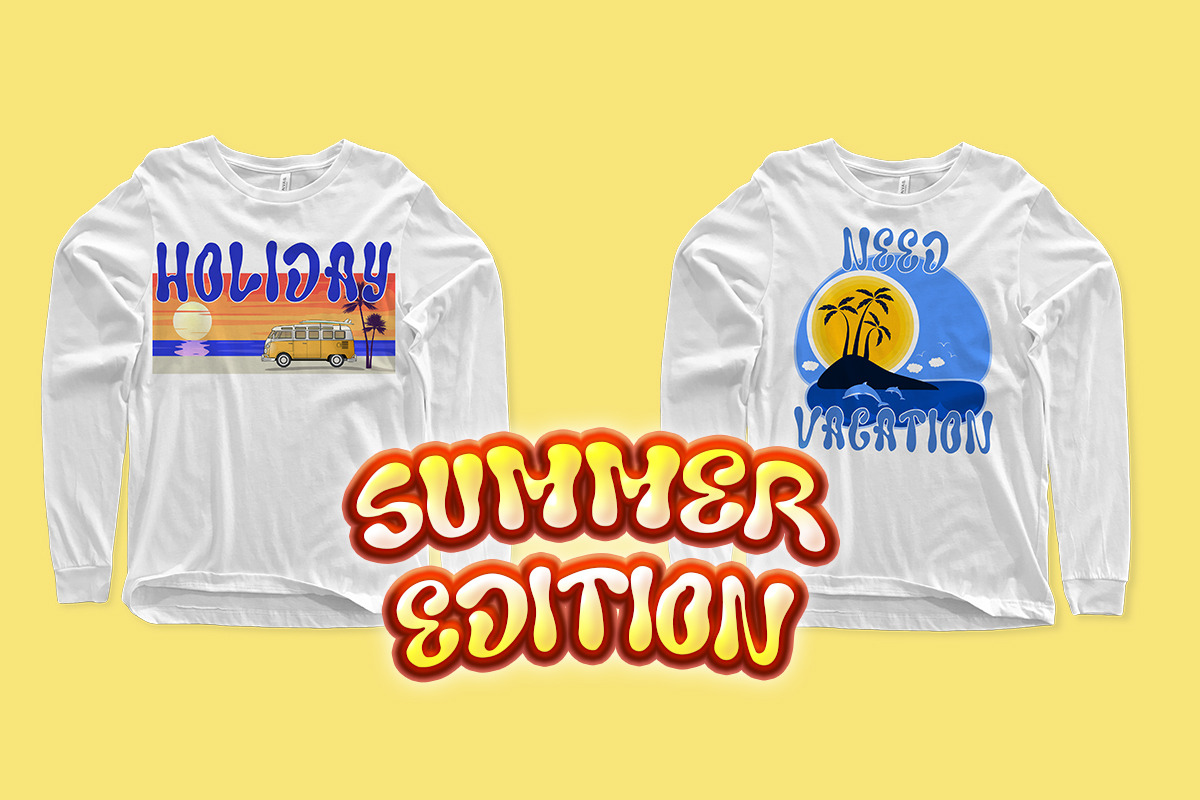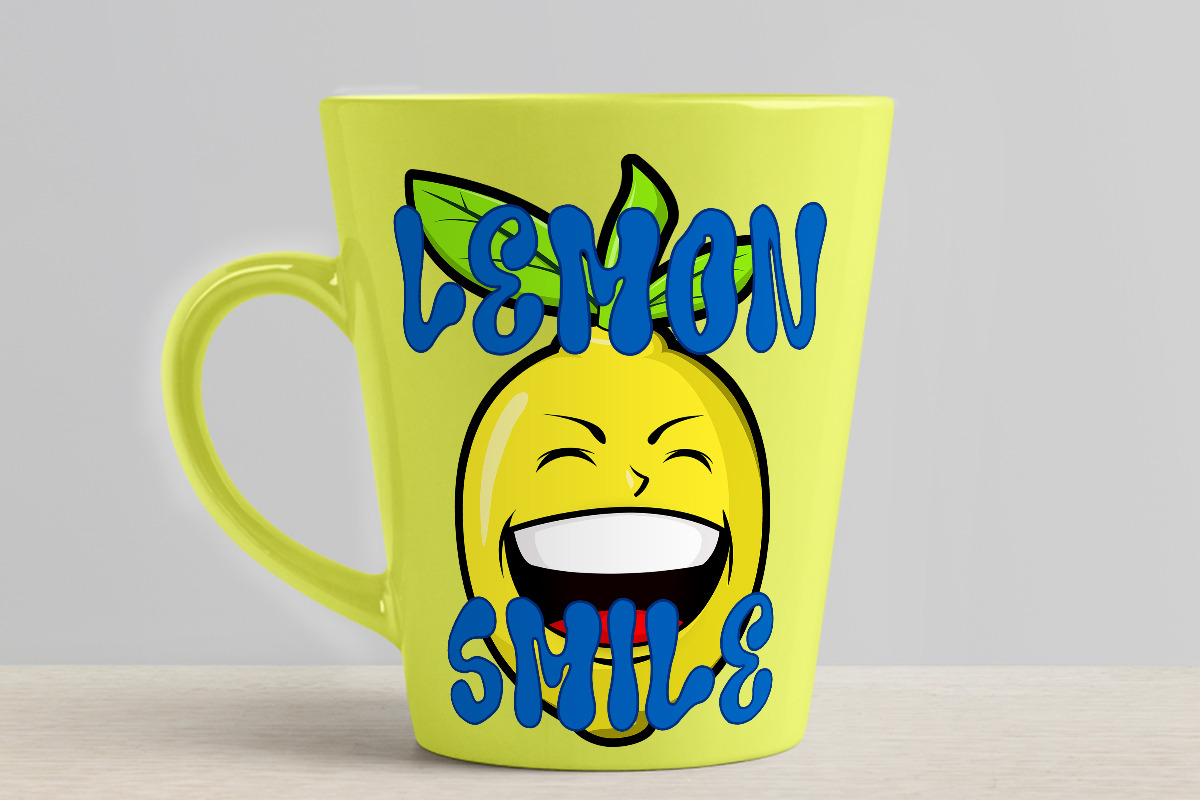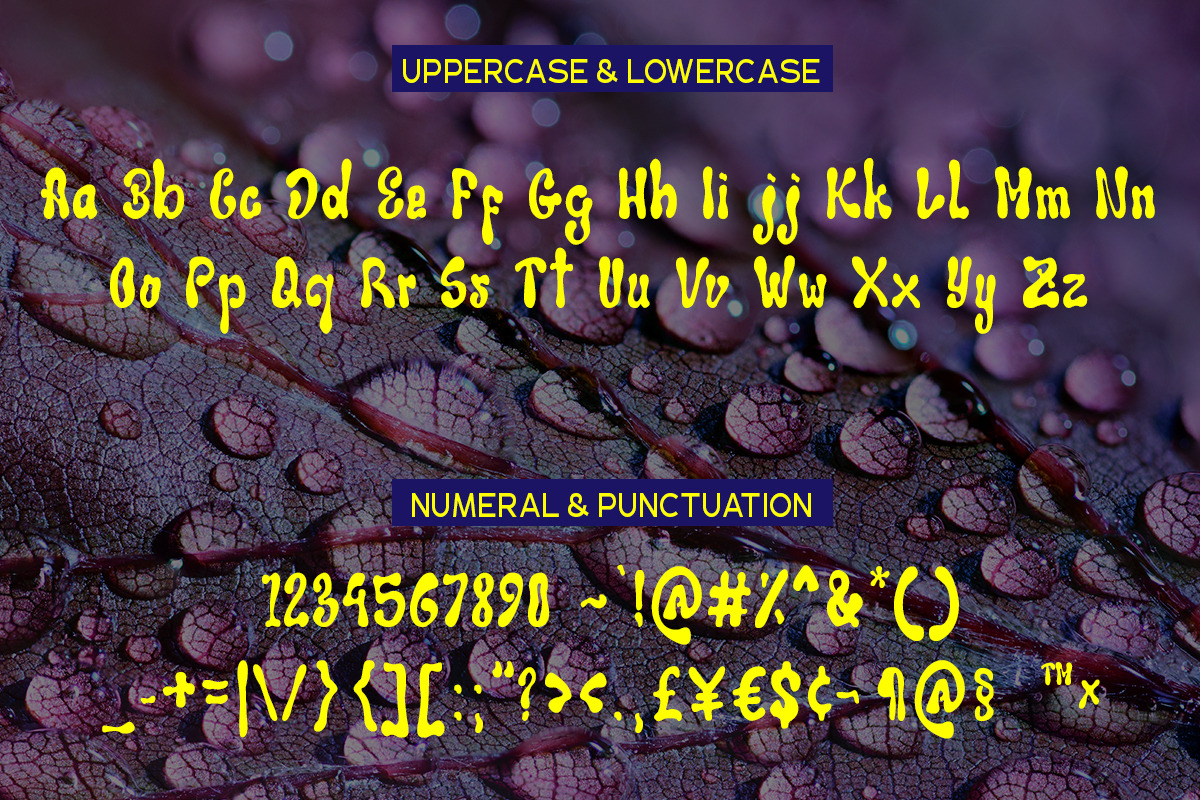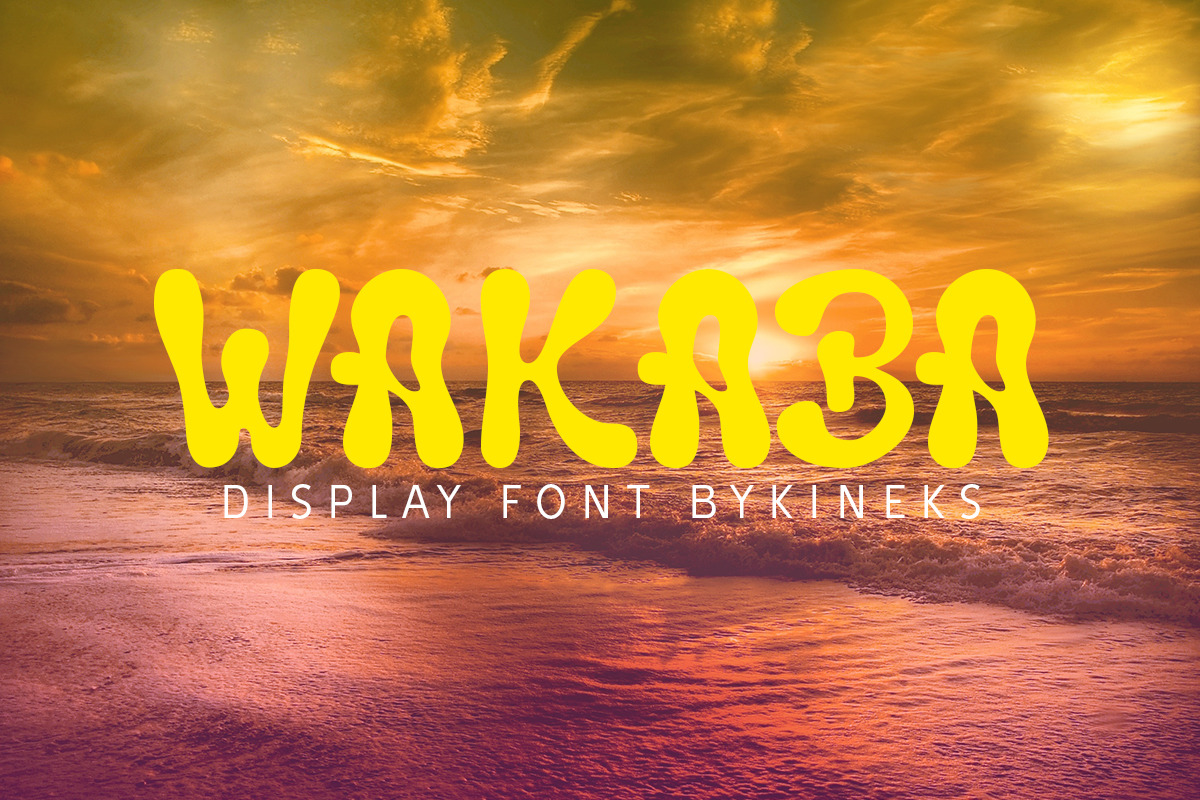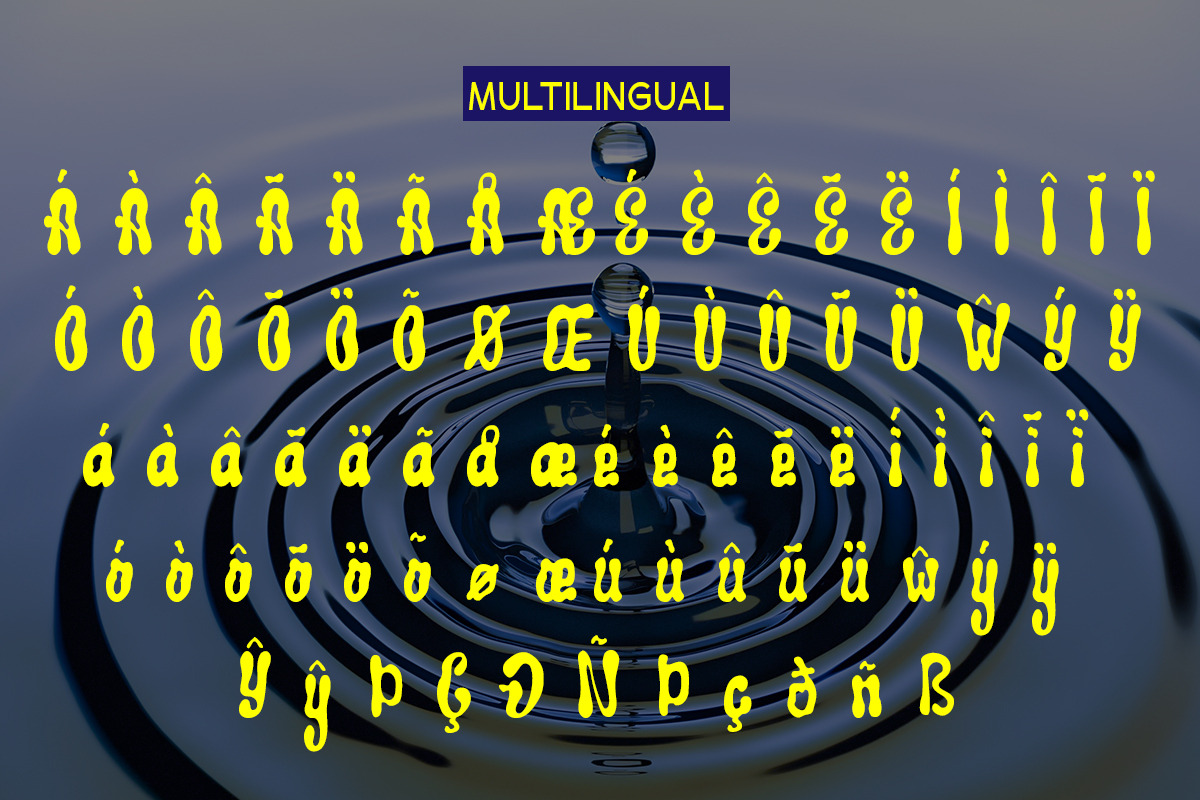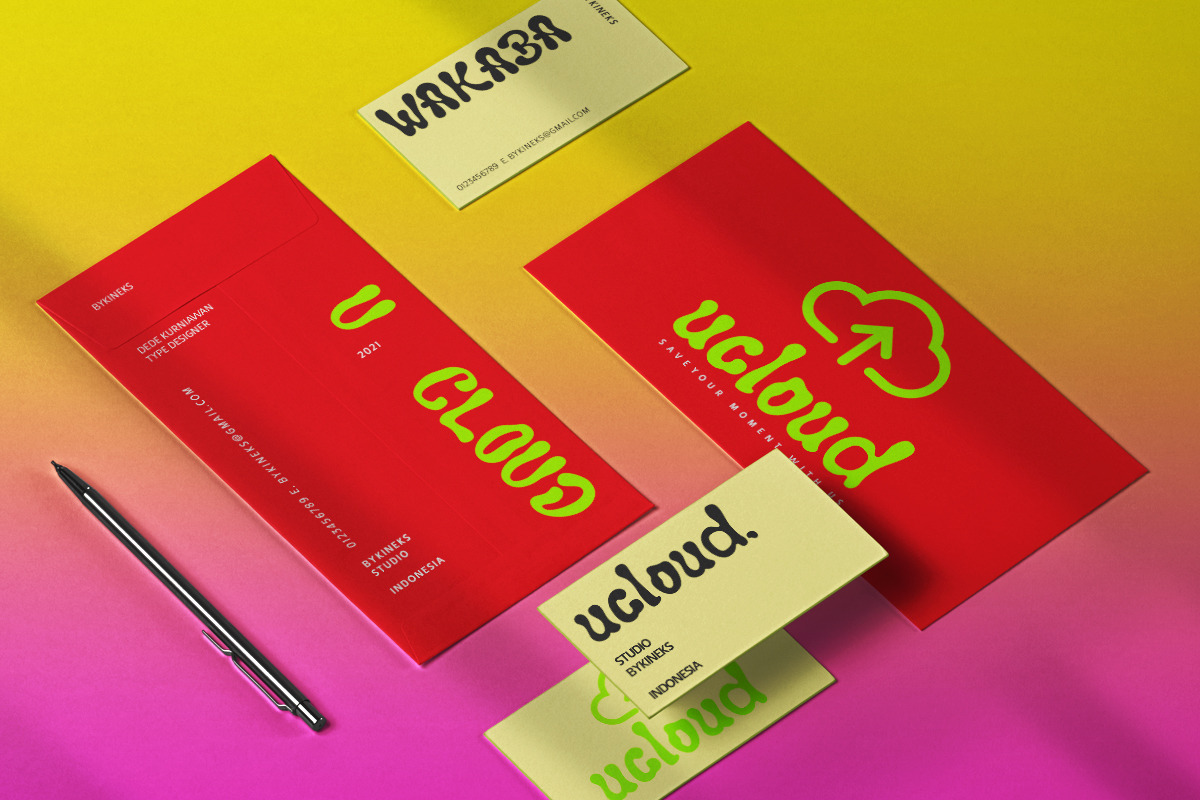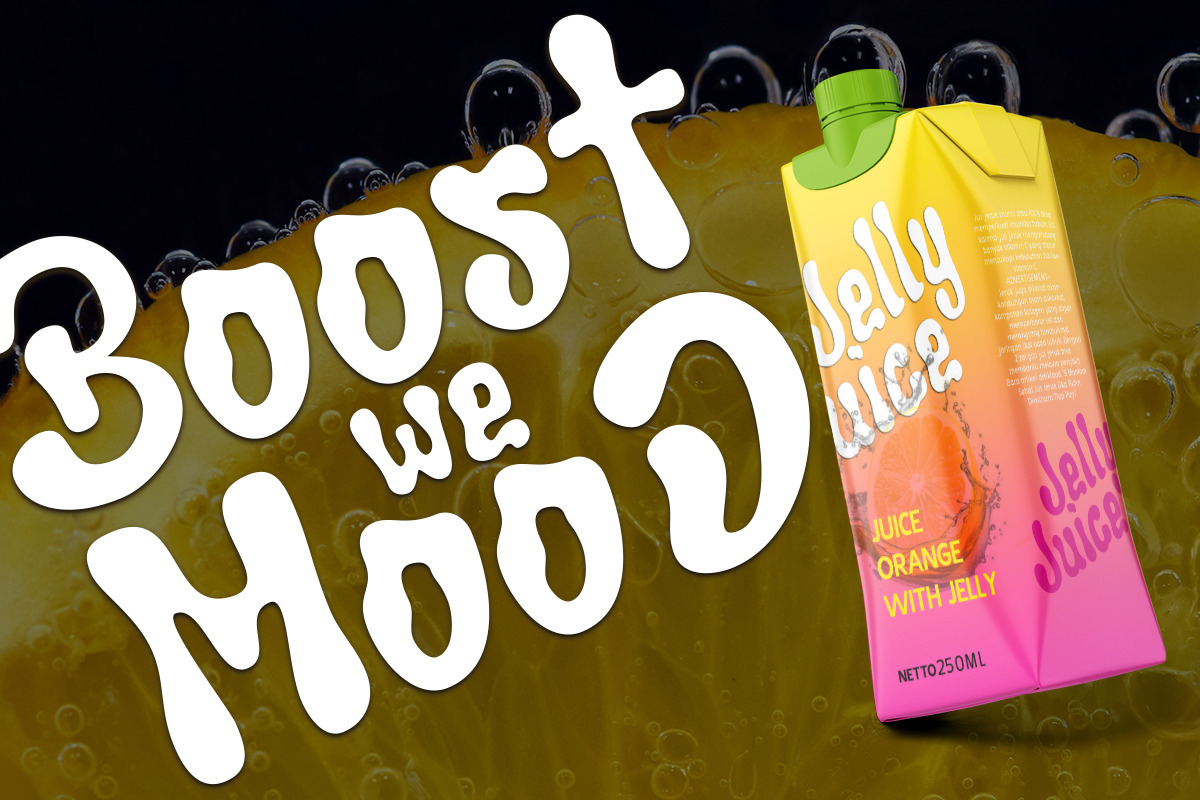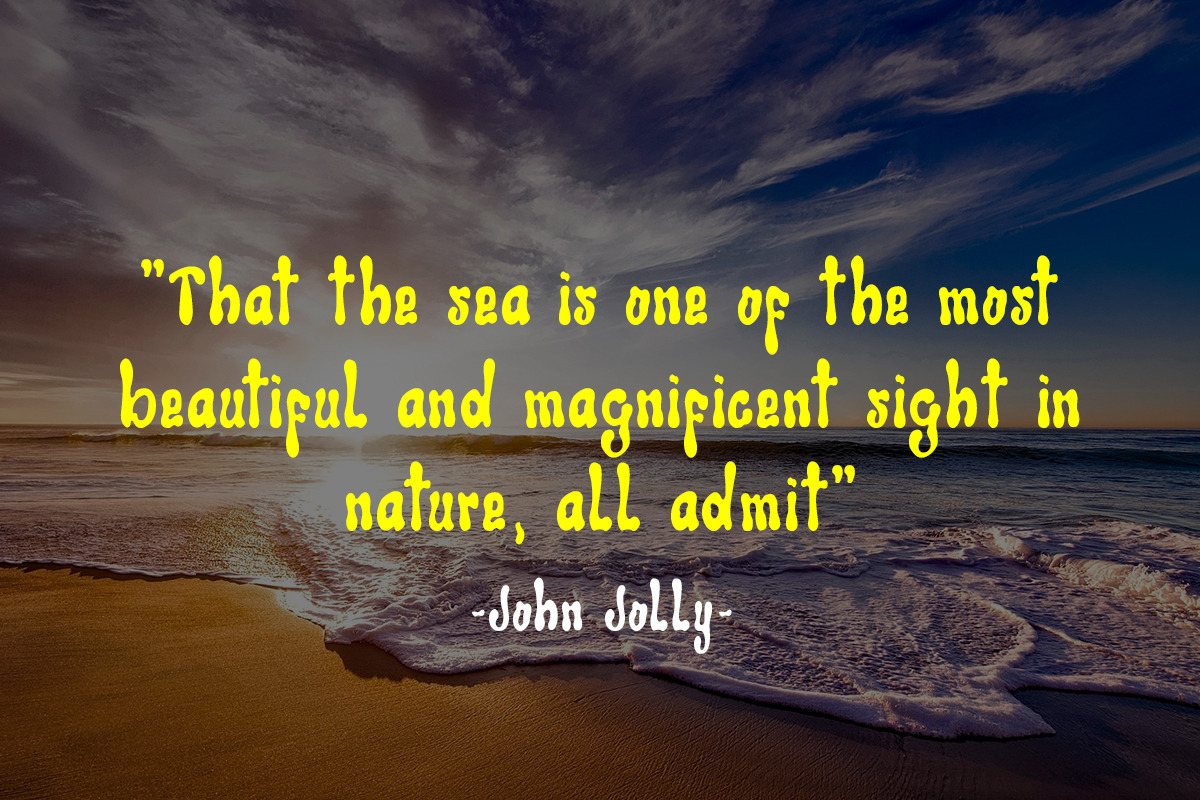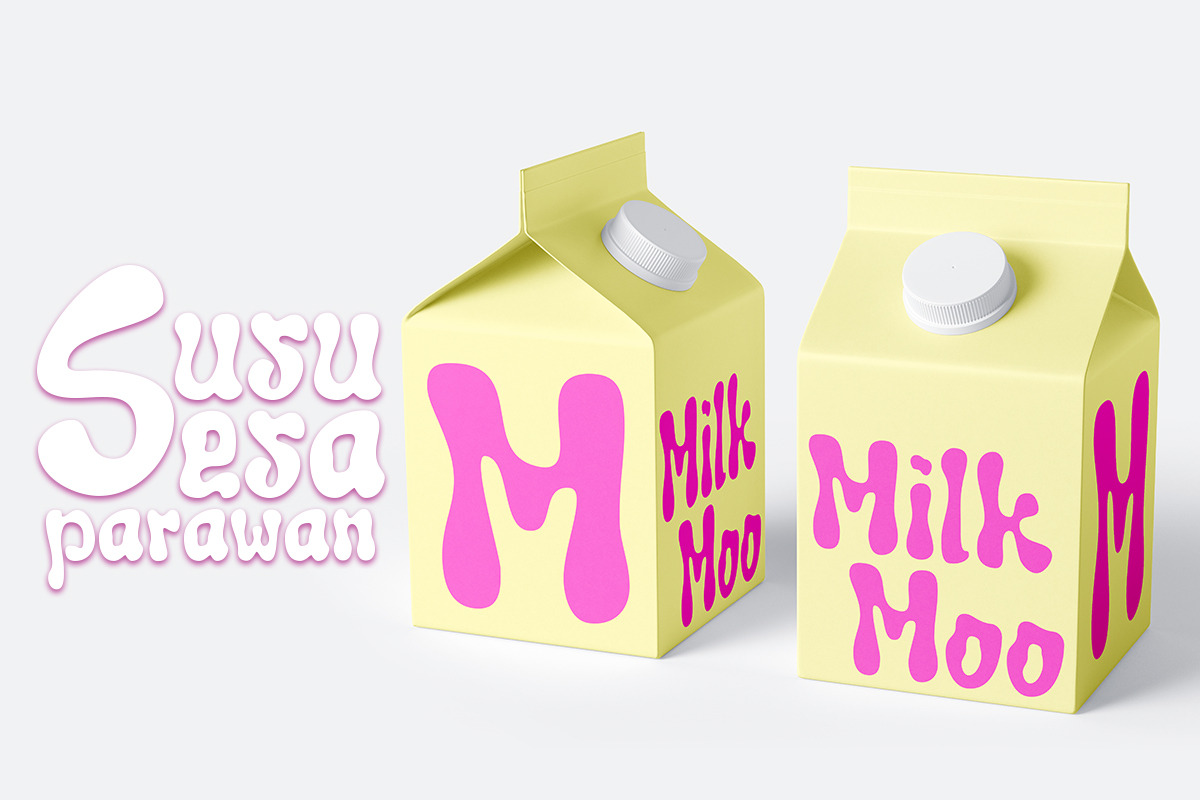
Wakaba | Display Font
Wakaba in a Japanese girl name means beach, yaps this font is inspired by a wave of sea water on the beach, with wavy, cool, relaxed characteristics that make people who read it drift away in a wave. This font is perfect for summer design needs, water themed, clothes design or whatever you think this font is suitable for use in your design projects and this font supports multilingual 82 languages.